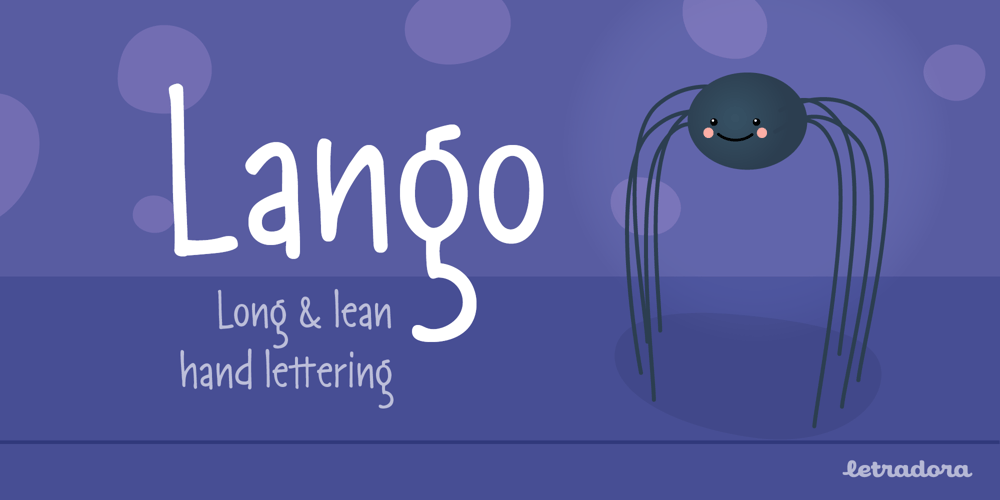
Lango Font Family was designed by Kemie Guaida Ortega and published by Letradora. Lango contains 4 styles and family package options. Lango is a hand drawn face, long and lean with an extended character support and good legibility. It has a casual look without being too informal, and is good for scrapbooking, greeting cards, or wherever a handmade touch is needed.